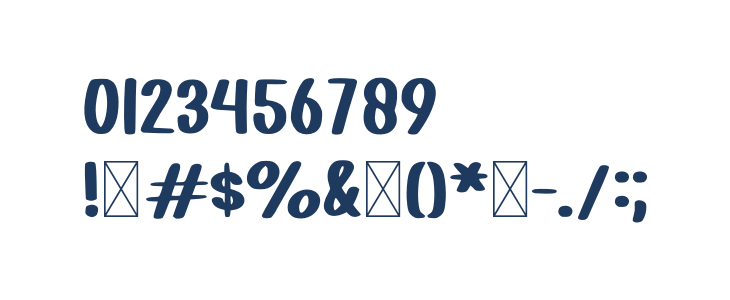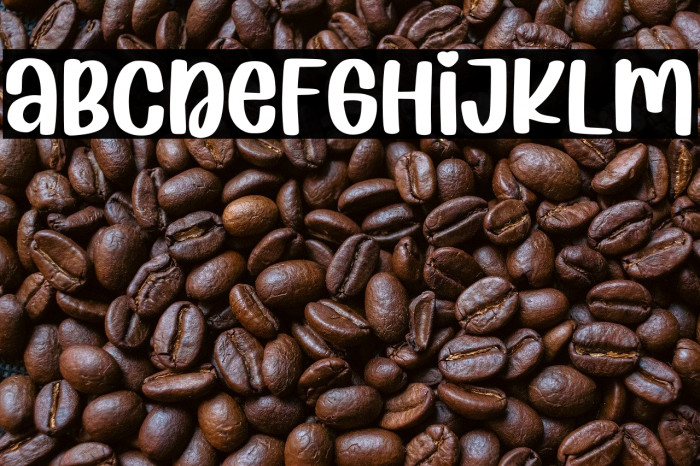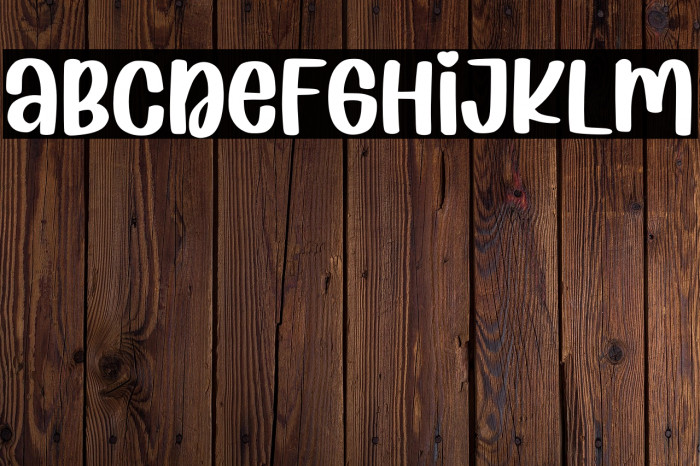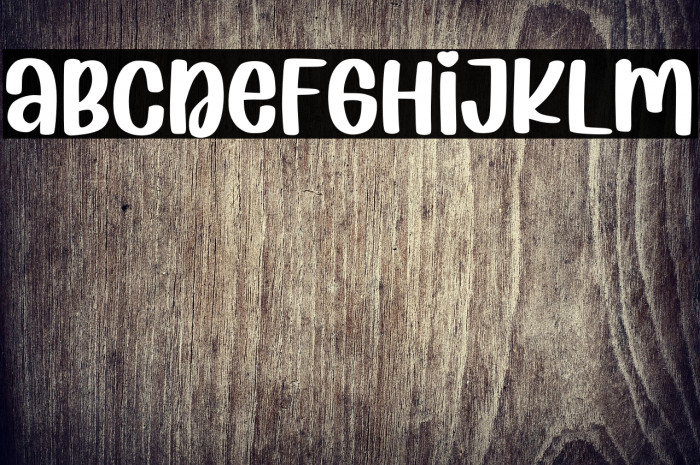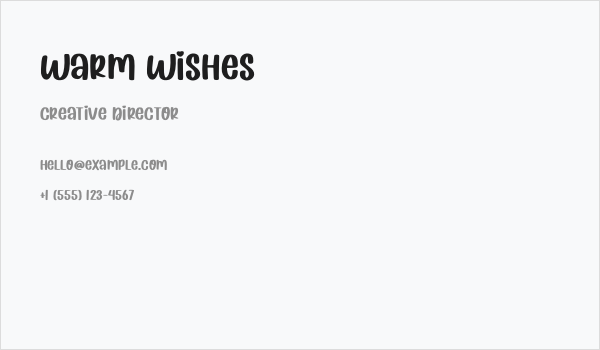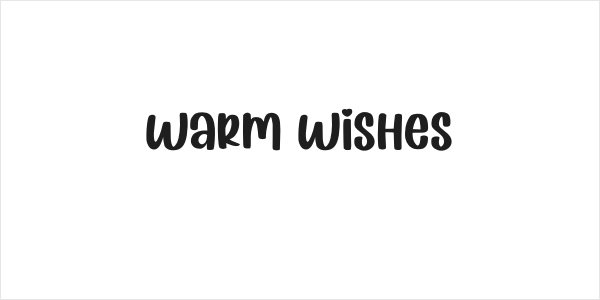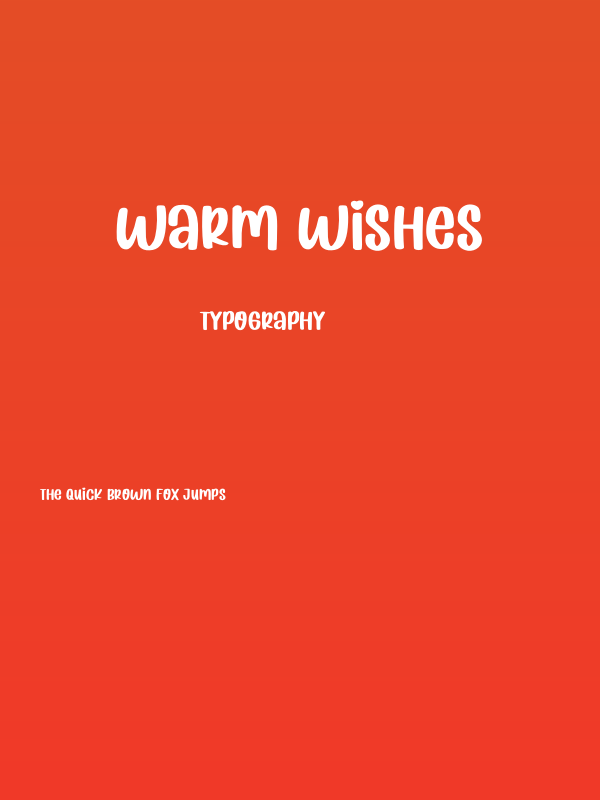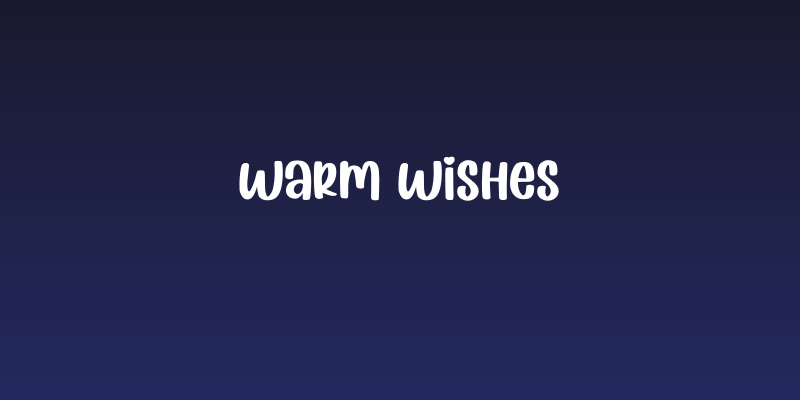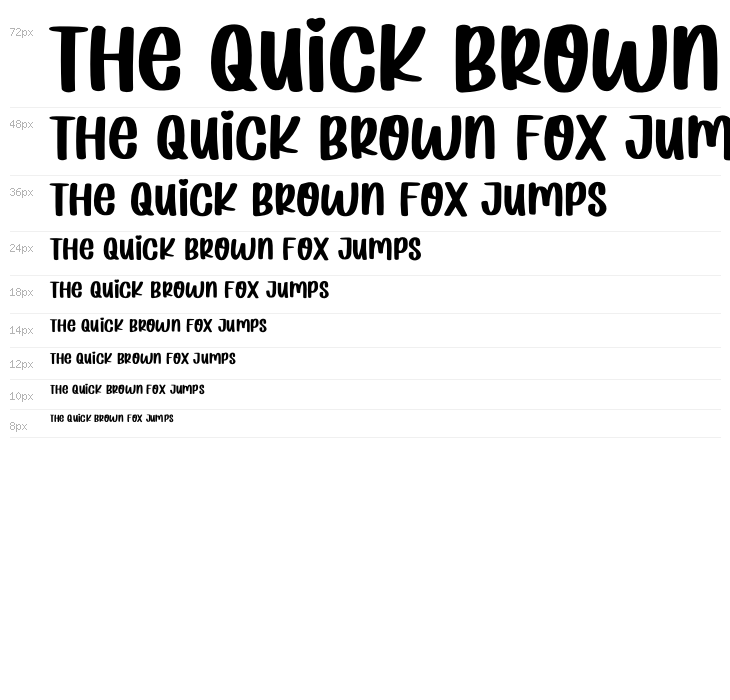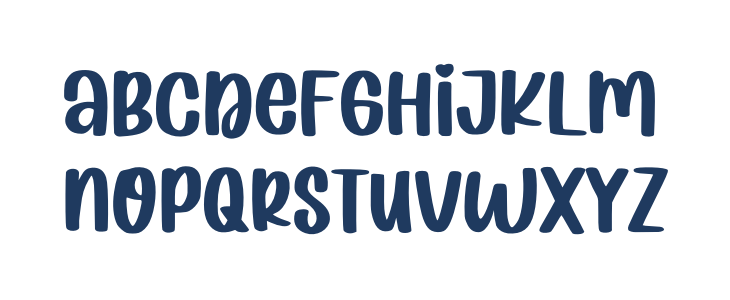
Warm Wishes Font
Warm Wishes Description
This playful and bold font features a handwritten style with a friendly and inviting appearance. The letters are rounded and slightly irregular, giving them a whimsical and casual feel. The uppercase and lowercase characters maintain a consistent style, with a noticeable thickness that ensures readability. The numbers and special characters are designed to match the overall aesthetic, making them suitable for a variety of uses. The font's unique charm is enhanced by its slightly condensed width and medium contrast, which adds to its visual appeal.
| Use Case | Greeting cards, Branding, Social media graphics |
| Proposed Projects | Ideal for greeting cards, playful branding, children's books, and social media graphics. |